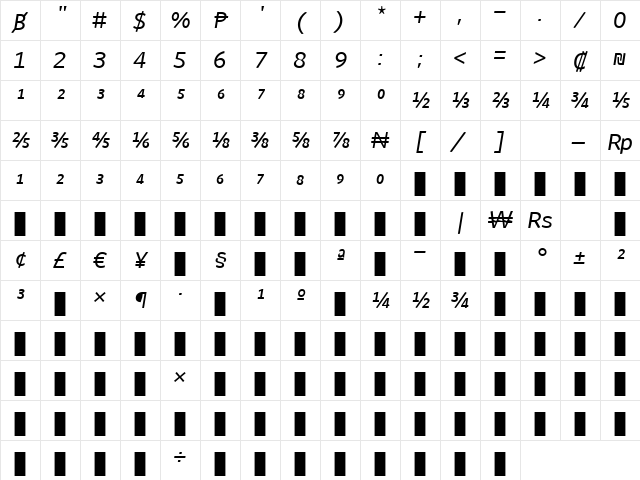
Whitney Numeric - Medium Italic Free Font
Design Context for Whitney Numeric - Medium
Whitney Numeric - Medium is a composed and adaptable typeface that performs quietly and consistently across a wide range of design contexts. The slanted form adds forward momentum and visual energy.
Pro Tip: Use Whitney Numeric - Medium for emphasis, pull quotes, and subheadings where its slanted energy can add rhythm to the layout.